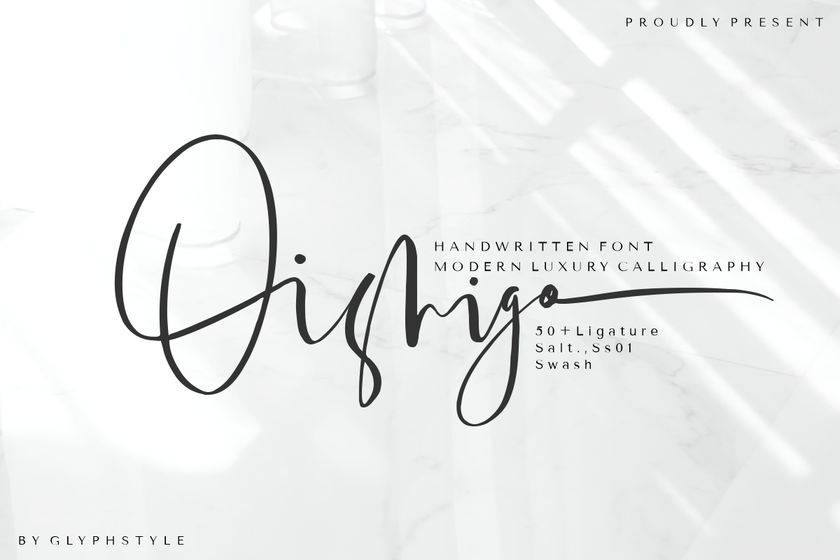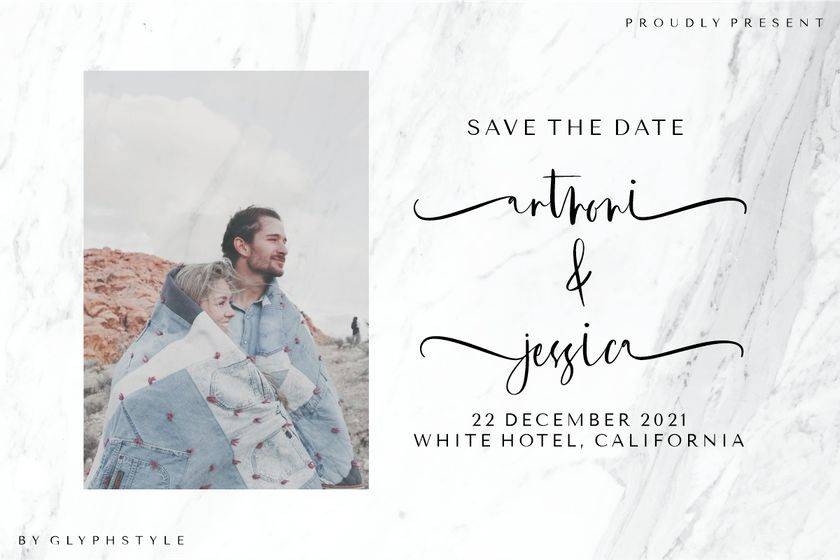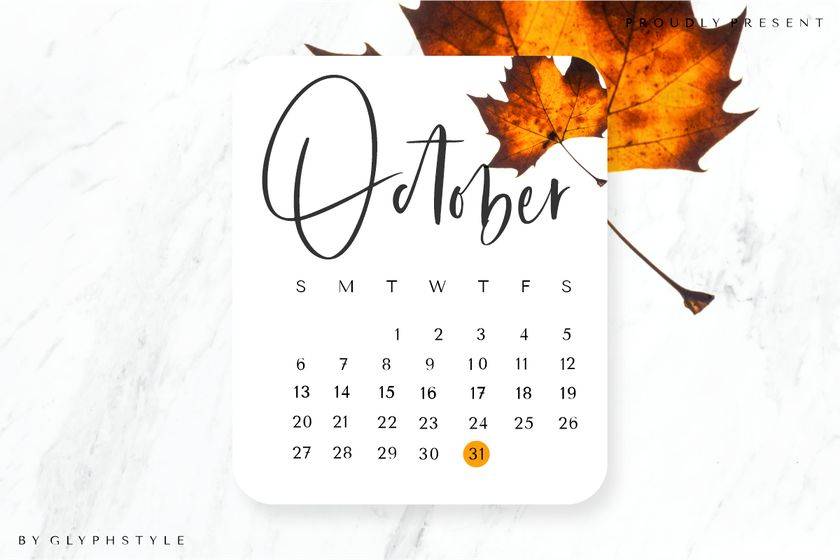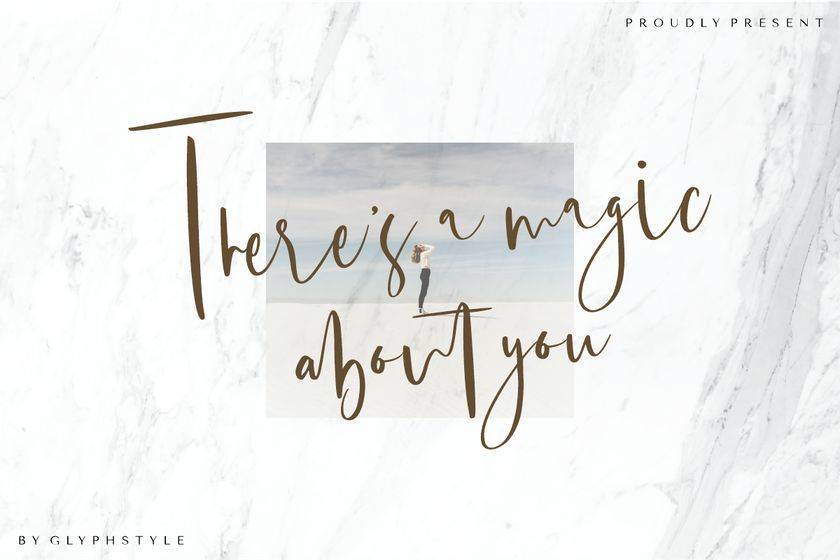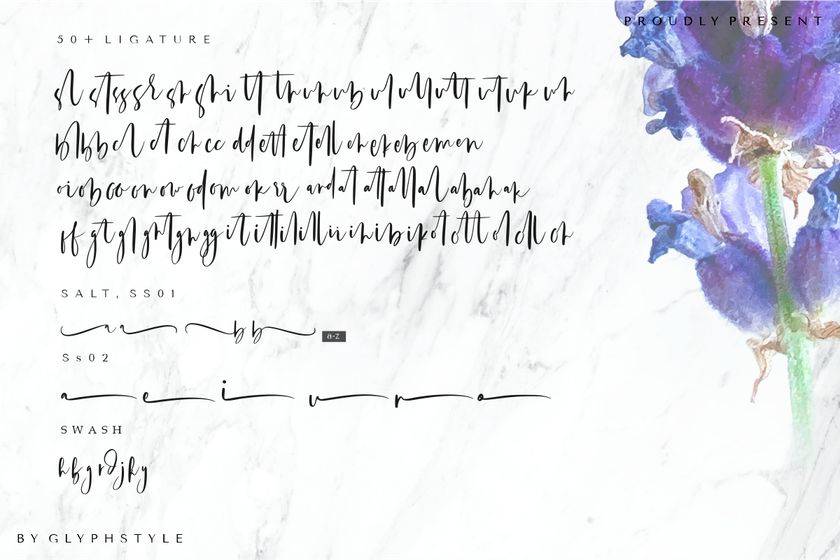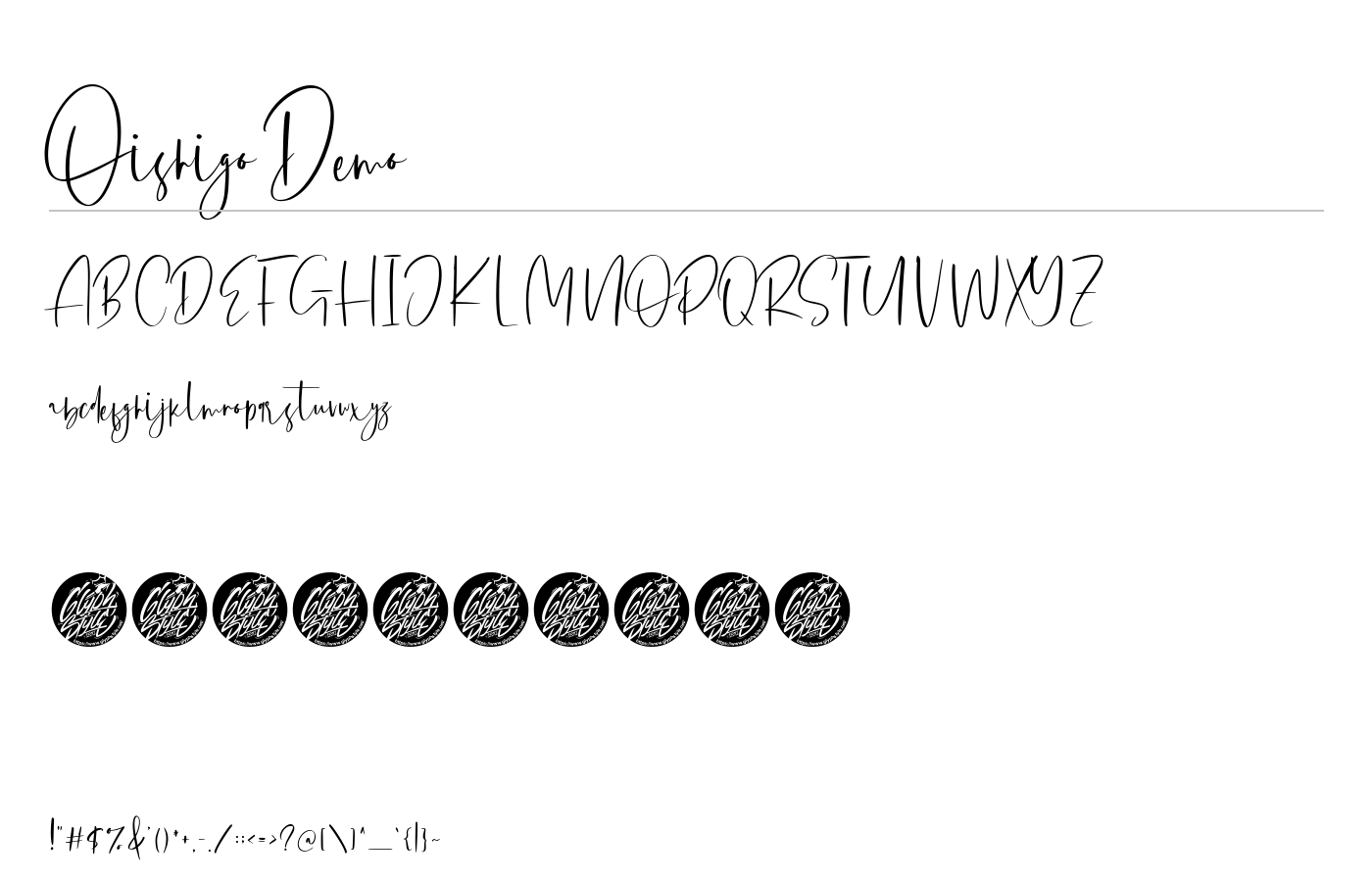
Oishigo is a delicate, thin script font with a handwritten feel, featuring elegant, elongated letterforms that flow smoothly with a subtle, artistic flair. Its light weight and tall, slender characters make it perfect for creative projects that want to express sophistication and personal charm, such as invitations, branding, and stylish editorial design. This font works best where an intimate, graceful touch is needed without overpowering the overall design.
Oishigo Font
About Oishigo Font
| Font family | Oishigo Font |
| Release date | 2021-11-23 |
| Designer | GlyphStyle |